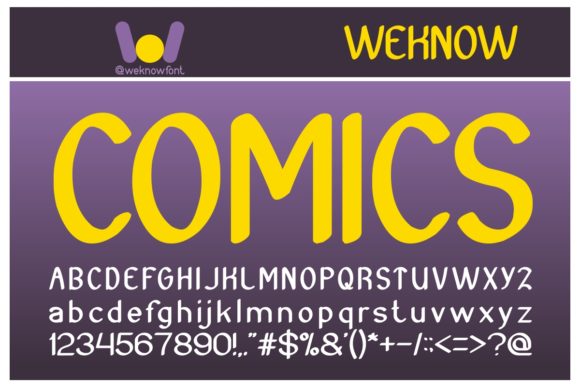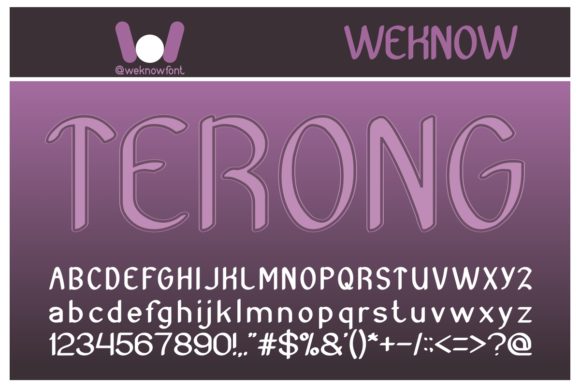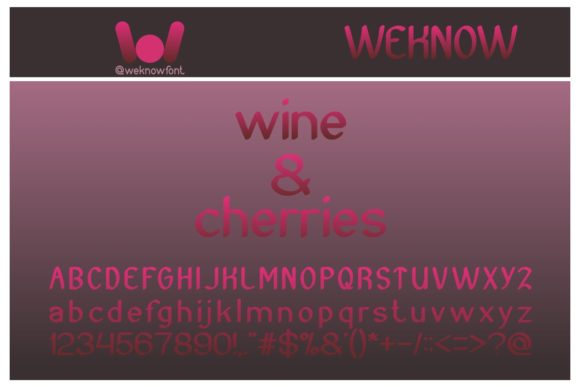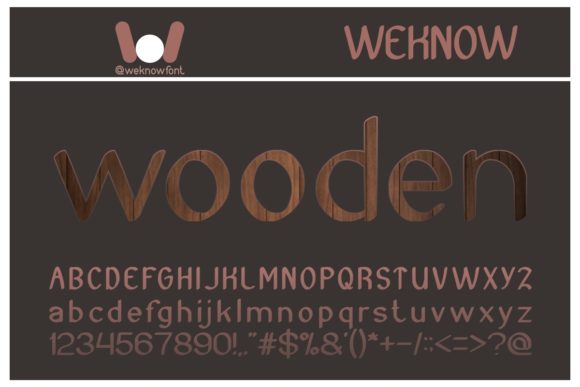
Introducing Archive Font: Elevate Your Designs with a Casual Handwritten Touch
In the world of design, fonts play a pivotal role in bringing ideas to life. Among the myriad of font styles available, handwritten fonts have a unique charm that can add a personal touch to any design project. Archive font, a casual handwritten font, has been making waves in the design community for its ability to make ideas appear more realistic and create spectacular designs. In this article, we’ll dive deep into the features, benefits, and uses of the Archive font, exploring how it can elevate your design game.
What is Archive Font?
Archive font is a type of casual handwritten font that embodies a sense of informality and approachability. Its unique characteristics make it stand out from more traditional fonts, offering a fresh and modern aesthetic that can be applied to a wide range of design projects. Whether you’re working on a branding campaign, crafting a social media post, or designing a website, Archive font provides a versatile solution that can adapt to various contexts.
Key Features of Archive Font
- Handwritten Style: Archive font boasts a genuine handwritten look, complete with subtle variations in line width and a casual feel that mimics human handwriting.
- Readability: Despite its casual nature, Archive font maintains a high level of readability, making it suitable for both short phrases and longer texts.
- Versatility: Its adaptability is one of Archive font’s strongest assets. It can be used in digital and print media, across various design themes and industries.
- Emotional Connection: The handwritten style of Archive font helps create an emotional connection with the audience, making designs feel more personal and engaging.
Benefits of Using Archive Font
Using Archive font in your designs comes with several benefits:
- Unique Aesthetic: Archive font helps your designs stand out with its unique and distinctive look, setting you apart from the crowd.
- Enhanced Engagement: The casual and approachable nature of the font can increase engagement, as it feels more relatable and less formal.
- Flexibility: Whether you’re designing for luxury brands or playful startups, Archive font can be adjusted and paired with other fonts to fit various brand identities.
- Time-Saving: With a font that already has a strong character, you save time on design adjustments, allowing you to focus on other creative aspects.
How to Use Archive Font Effectively
To maximize the potential of Archive font, consider the following tips:
- Pair with Complementary Fonts: Combine Archive font with cleaner, sans-serif fonts for headings and body text to create visual hierarchy and contrast.
- Adjust Font Weights: Experiment with different weights of Archive font to add emphasis and distinguish between different sections of your design.
- Limit Text Blocks: For better readability, keep text blocks concise and use Archive font where a personal touch is most needed.
- Consider Color: Choose colors that complement the casual feel of Archive font. Earth tones, pastels, and vibrant colors can enhance its friendly vibe.
Who Can Benefit from Archive Font?
Archive font is a valuable asset for a wide range of professionals and creatives, including:
- Graphic Designers: Looking for a unique touch to add to their projects.
- Marketers: Aiming to create more relatable and engaging content.
- Web Designers: Seeking to add personality to websites and digital interfaces.
- Crafters and Makers: Incorporating handwritten elements into their product designs.
Archive font offers a refreshing alternative to traditional typography, bringing a casual handwritten feel to designs. Its readability, versatility, and emotional resonance make it an excellent choice for designers and crafters looking to add a personal touch to their work. By incorporating Archive font into your design toolkit, you’re equipped to create more engaging, realistic, and spectacular designs that resonate with your audience.